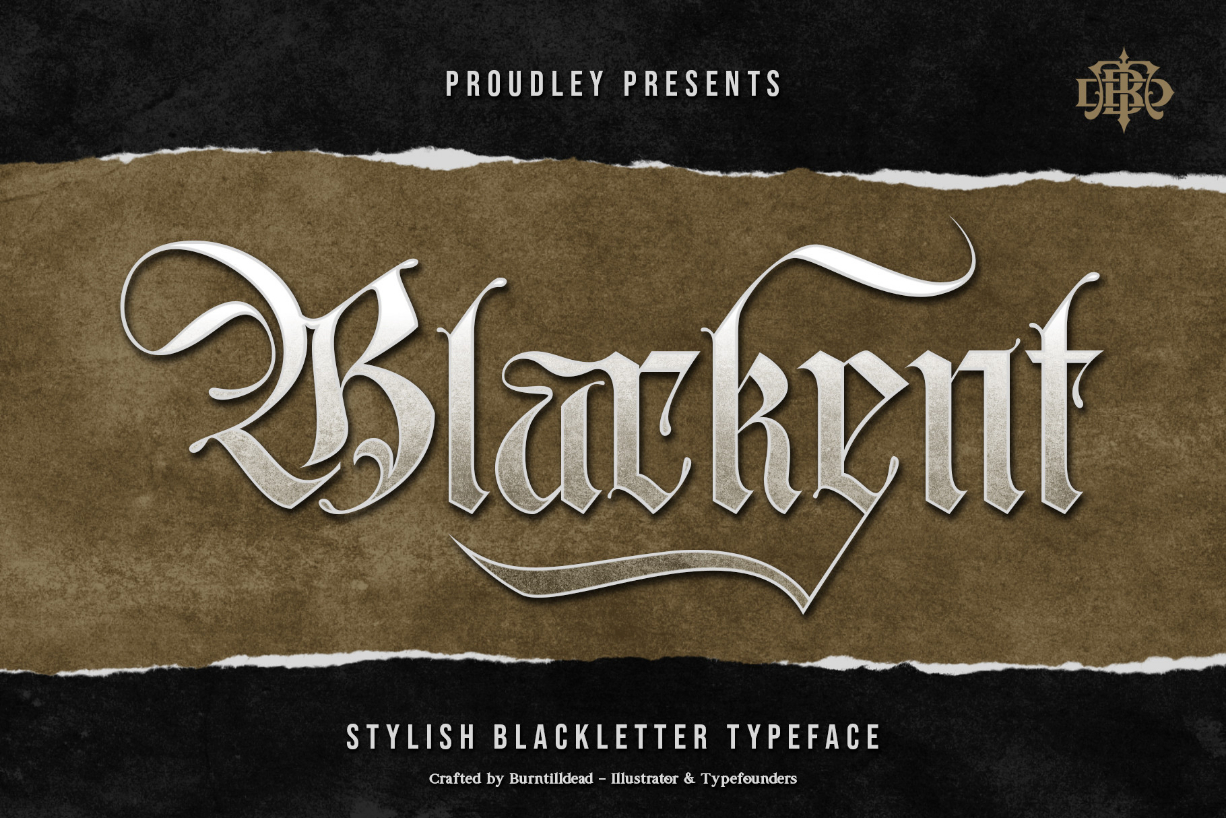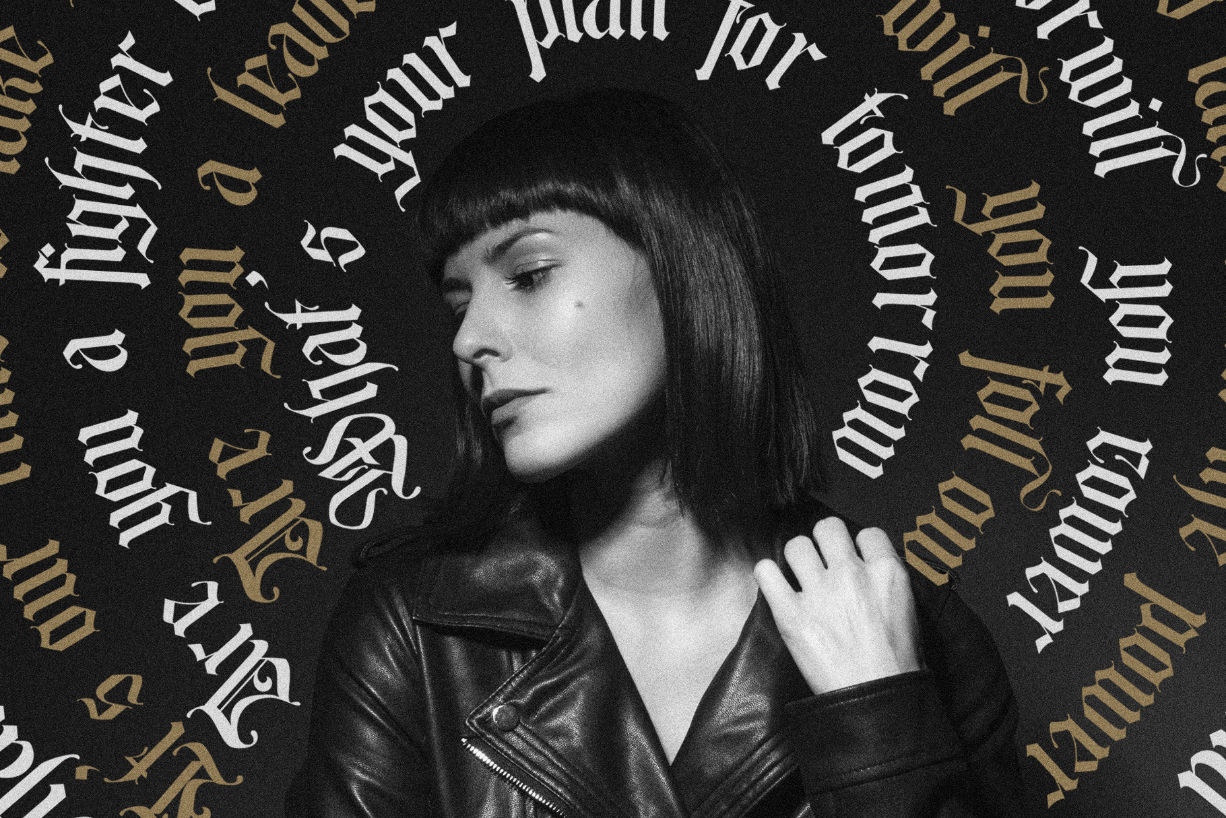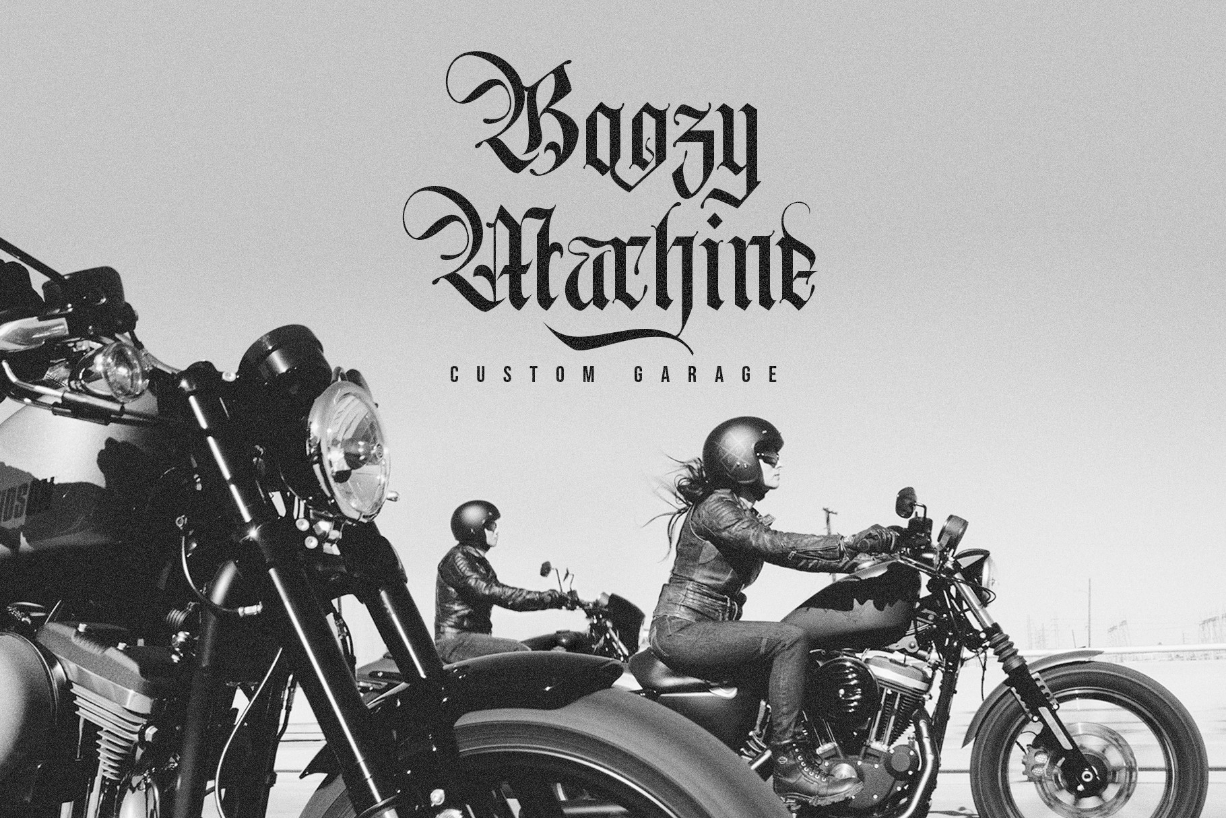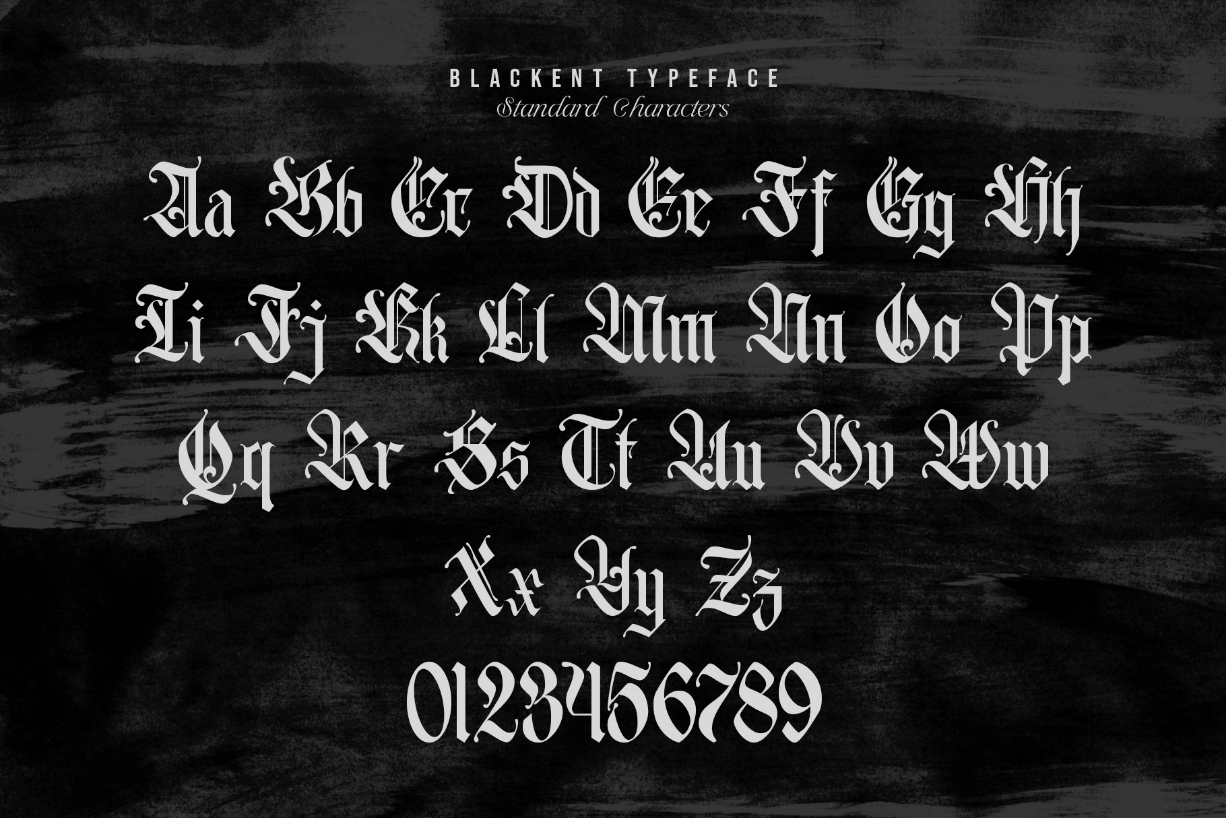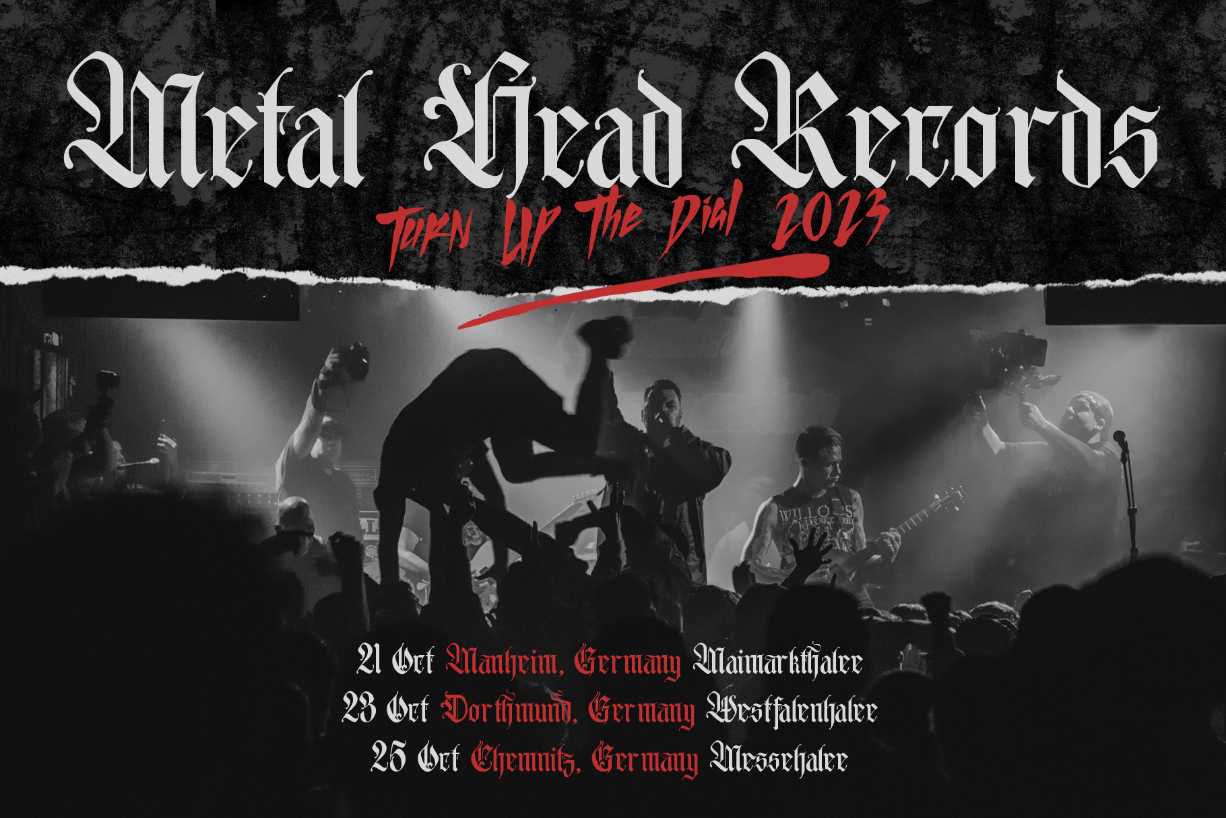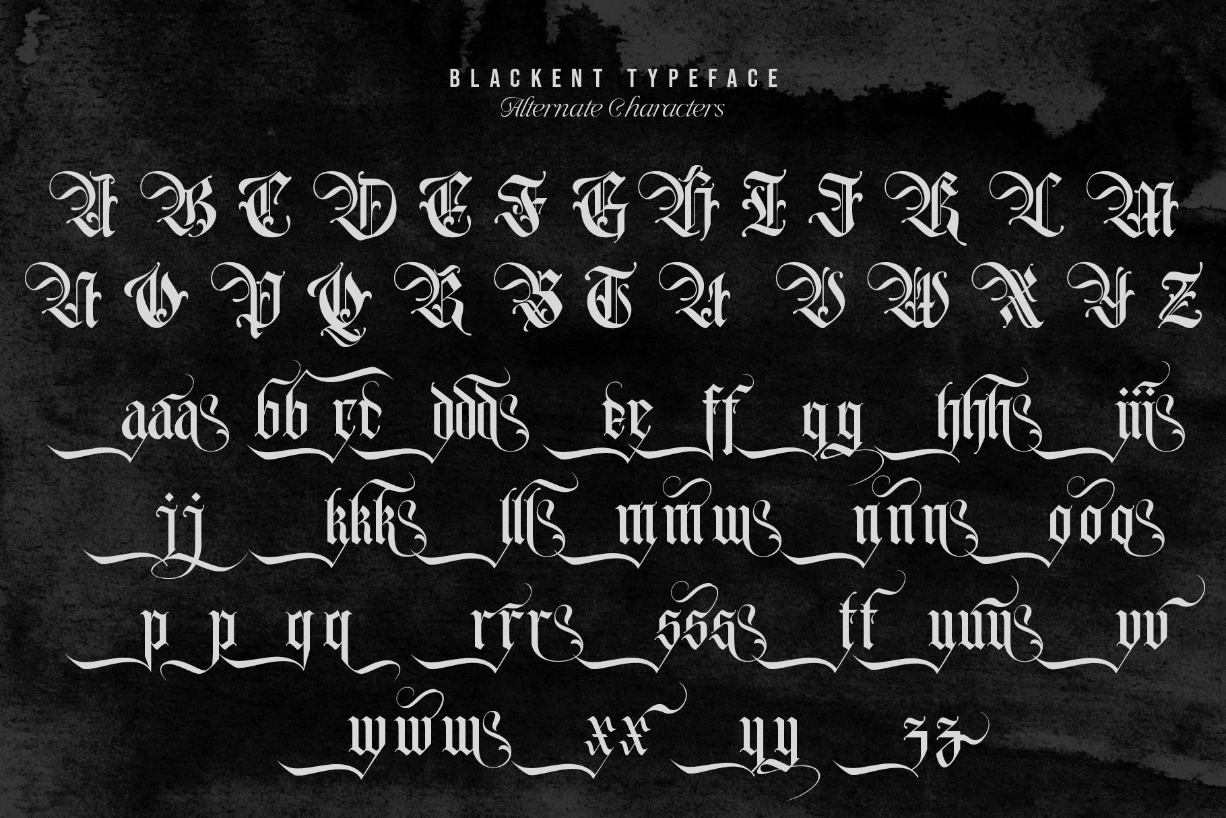
Blackent Font
About Blackent Font
Blackent is  a stylish blackletter font. Inspired by the logo signs from the dark gothic edge.
Blackent is very useful to bring a good statement for logo, poster title, headline, merchandise, badge, clothing design, vintage design, etc.